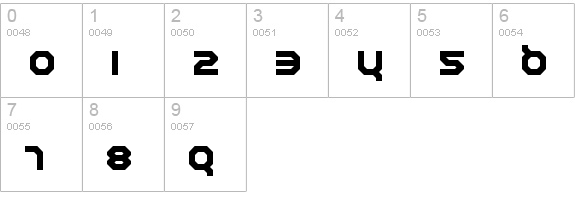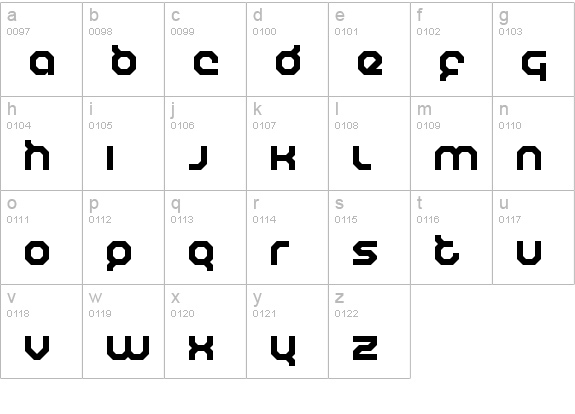
Humanoid Font Details
Humanoid font is a sleek and modern typeface designed for a wide range of creative projects. With its clean lines and futuristic aesthetic, this font is perfect for adding a touch of sophistication to your designs. Whether you're creating a logo, poster, or website, Humanoid font will give your work a contemporary edge. The best part is that Humanoid font is completely free to download at FontsMarket.com. You can easily access this versatile font and use it in your projects without any cost. Don't miss out on the opportunity to elevate your designs with the stylish and professional look of Humanoid font. Download it today and start creating stunning visuals with ease.